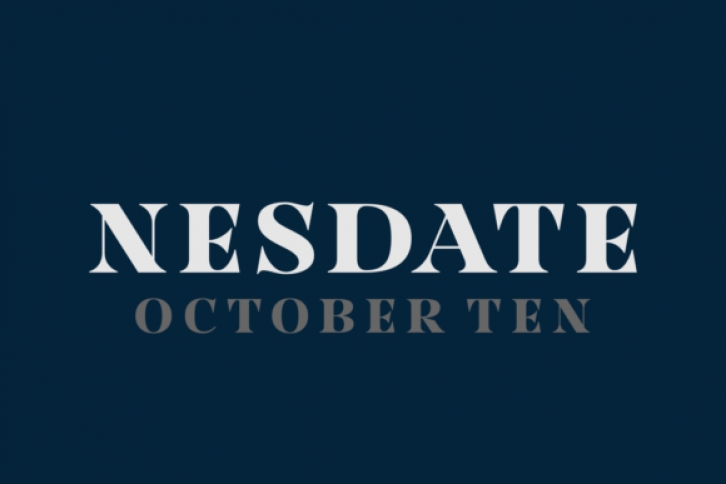
The Nesdate October Ten is a simple, yet striking typeface. The letters have a good readability with a classic style.
It comes in two weights; regular and italic, which makes it perfect for various designing needs.